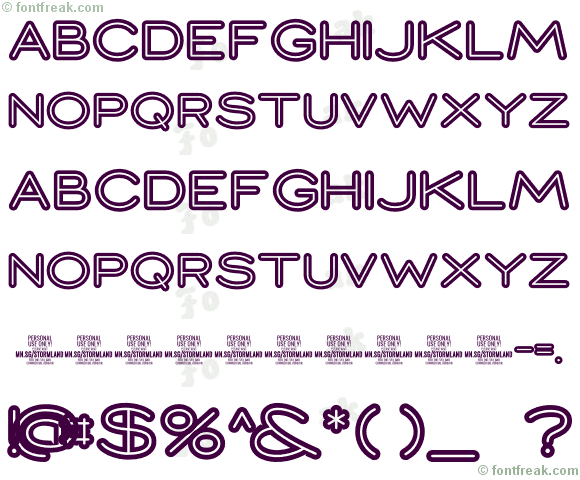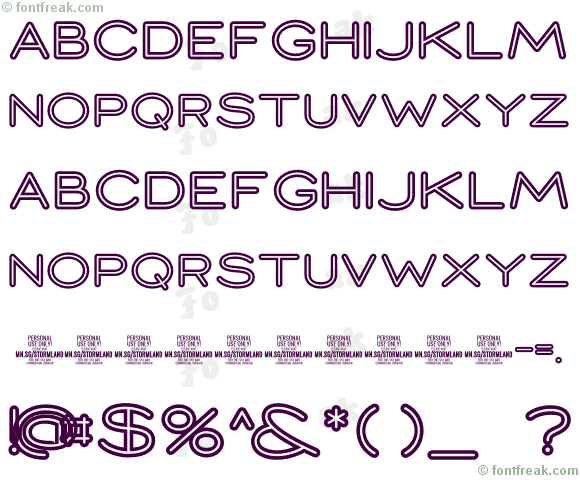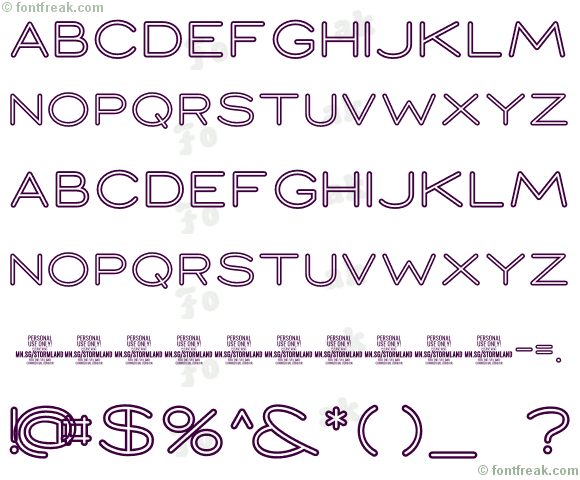
Stormline PERSONAL USE ONLY Medium
About Stormline PERSONAL USE ONLY Medium
The Stormline PERSONAL USE ONLY Medium font by Mans Greback is a striking display typeface that combines modern aesthetics with a touch of playful elegance. This font falls within the decorative category, characterized by its distinctive style that captures attention. With a medium stroke weight, it strikes a balance between boldness and readability, making it an excellent choice for various design projects.
Visually, Stormline features a unique blend of rounded edges and angular shapes that create a sense of dynamism. The moderate contrast in stroke thickness enhances its visual appeal, while the generous letter spacing gives it a spacious feel, making it easy to read even at larger sizes. The overall design is clean yet eye-catching, perfect for projects that require a touch of creativity.
This font is particularly well-suited for a range of applications. It shines in wedding invitations, where its playful elegance can set a romantic tone. Movie posters also benefit from its bold character, helping to convey themes and emotions effectively. Restaurant menus can utilize Stormline to create an inviting atmosphere, while branding materials for small businesses can leverage its distinctive style to stand out in a crowded market.
Targeted at graphic designers, small business owners, and content creators, Stormline is versatile enough to cater to a diverse audience. Its unique design elements allow it to be used in various contexts, making it a valuable addition to any designer’s toolkit.